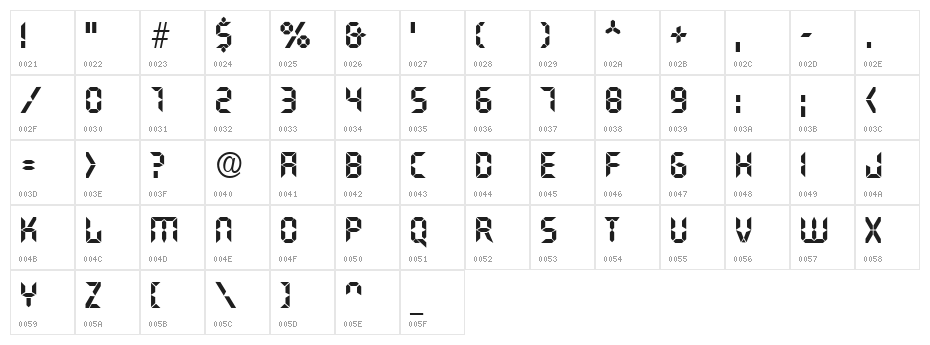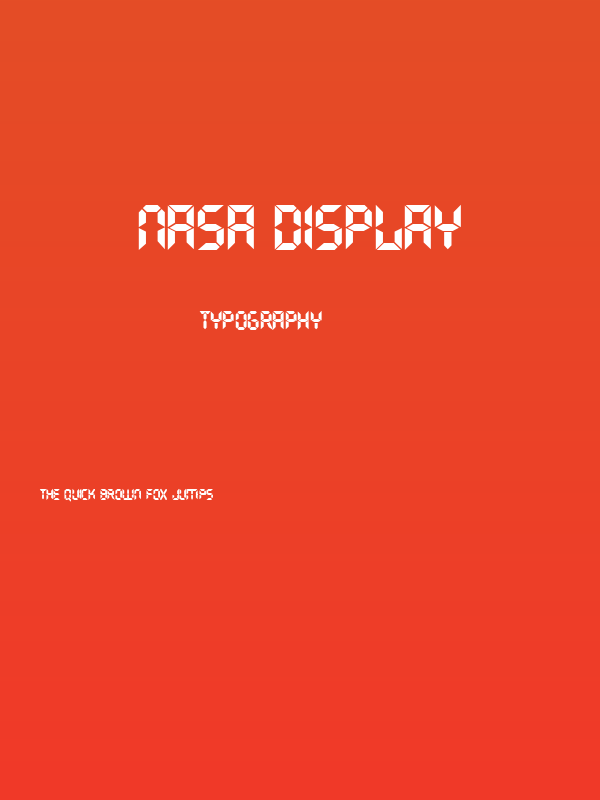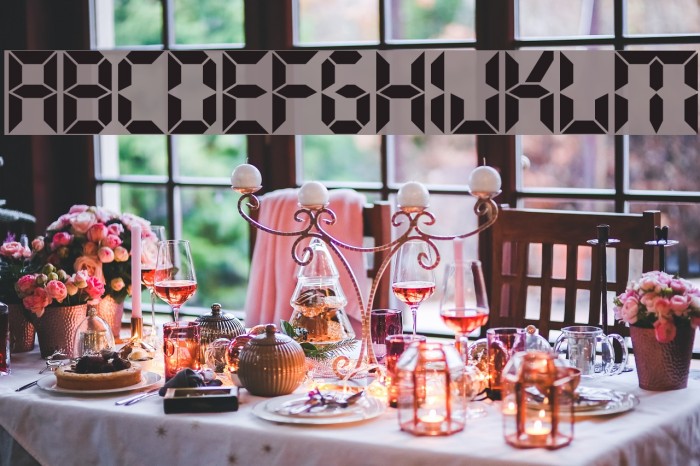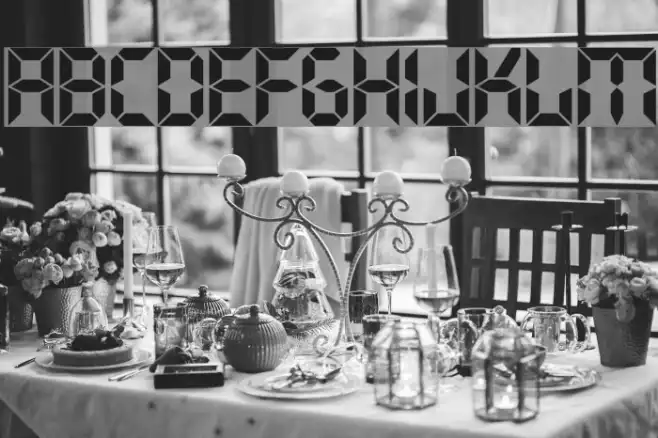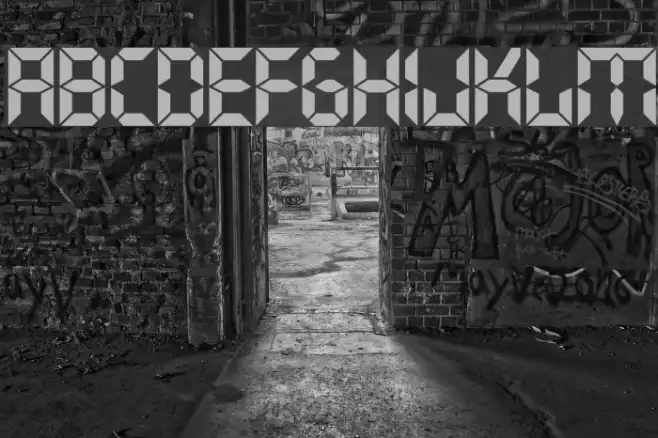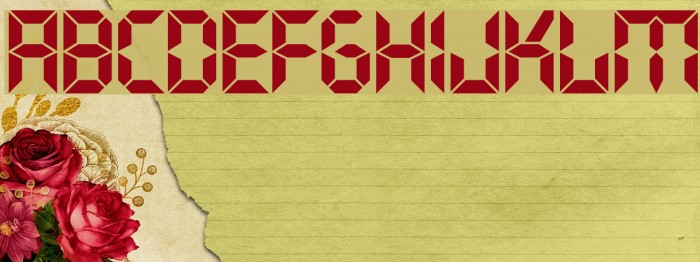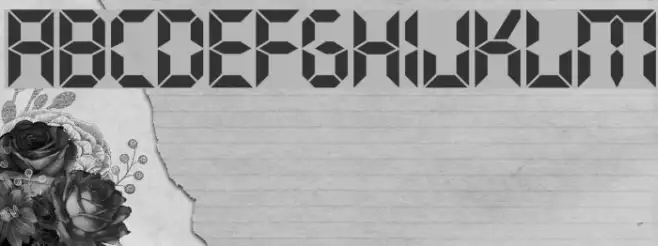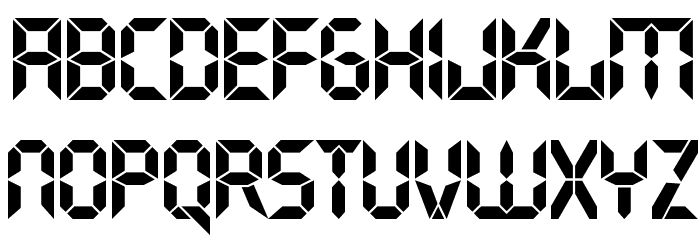
Nasa Display Font
Nasa Display Description
This font features a futuristic and geometric design, characterized by its bold, angular shapes and sharp edges. Each character is constructed with a series of interconnected polygons, giving it a distinctly modern and digital appearance. The uniformity in the design creates a cohesive look across all characters, while the angularity adds a sense of dynamism and energy. The font's unique style makes it stand out, ideal for projects that require a modern and tech-inspired aesthetic.
| Proposed Projects | Ideal for technology branding, sci-fi posters, video game titles, and digital interfaces. |